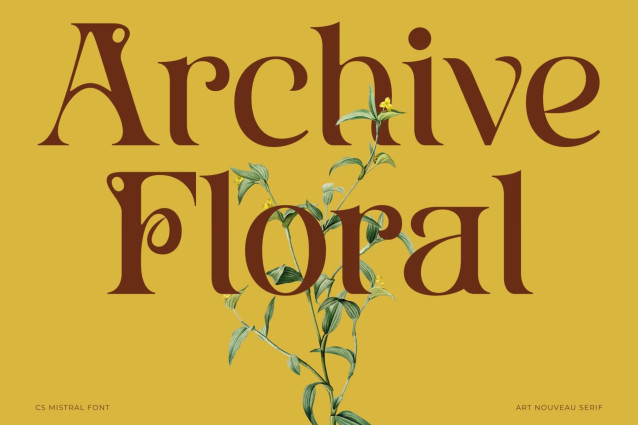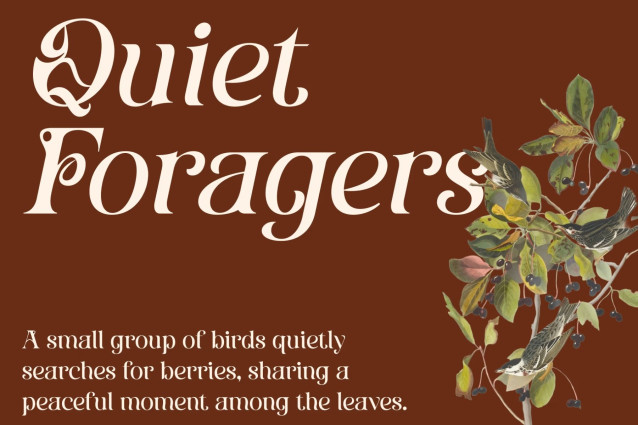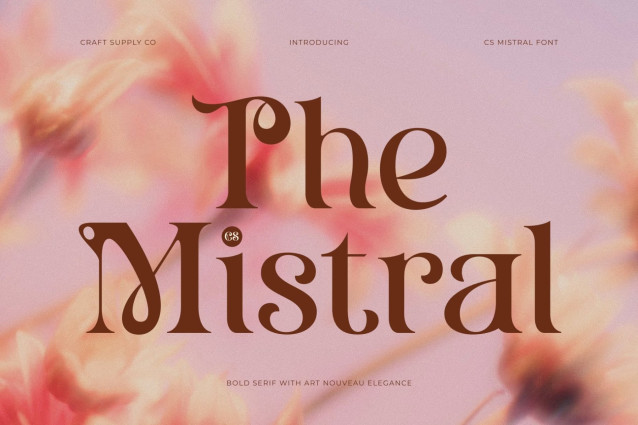
CS Mistral – Art Nouveau Font
CS Mistral – Art Nouveau Display Font with Bold Organic Elegance
Display Font with Art Nouveau Inspiration
This is an Art Nouveau display font that captures the beauty of organic design through graceful curves and expressive forms. Inspired by the artistic movement known for its flowing natural lines, this typeface combines decorative sophistication with a bold contemporary presence. It is crafted for designers who seek typography that feels elegant, artistic, and visually distinctive.
Organic Curves with Bold Character
The defining feature of this font lies in its flowing organic curves that create a sense of movement and natural rhythm. These graceful forms are paired with bold strokes, giving the font a strong visual presence while preserving its refined elegance. The result is a striking balance between softness and strength that immediately captures attention.
Elegant Details with Artistic Refinement
This font showcases carefully crafted details and harmonious proportions that enhance its sophisticated character. The elegant lines and decorative touches create a luxurious aesthetic, making every headline and title feel artistic and memorable. Its unique design transforms typography into a visual centerpiece within any composition.